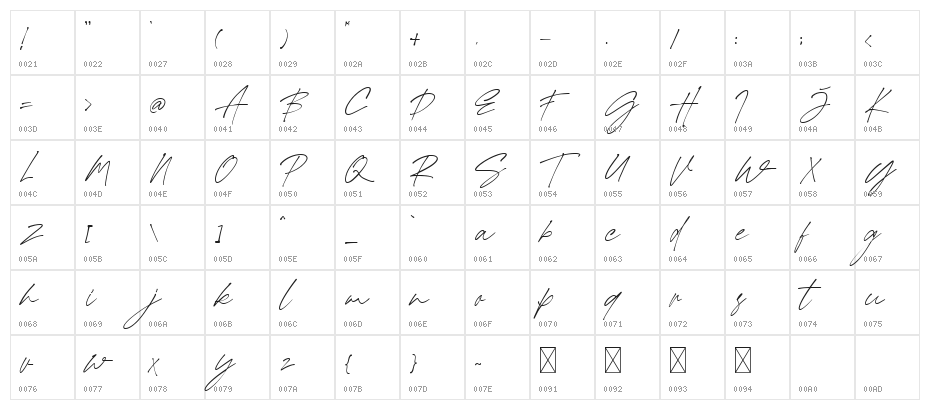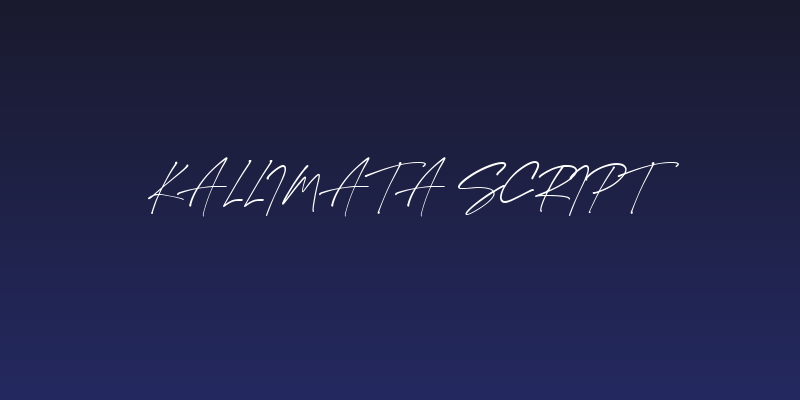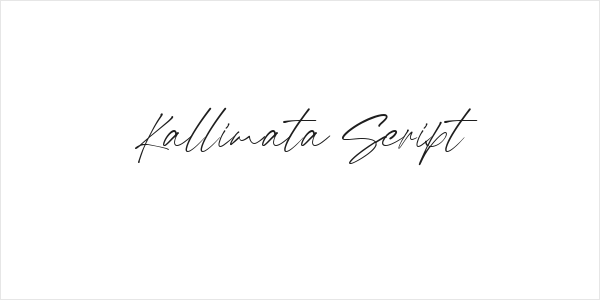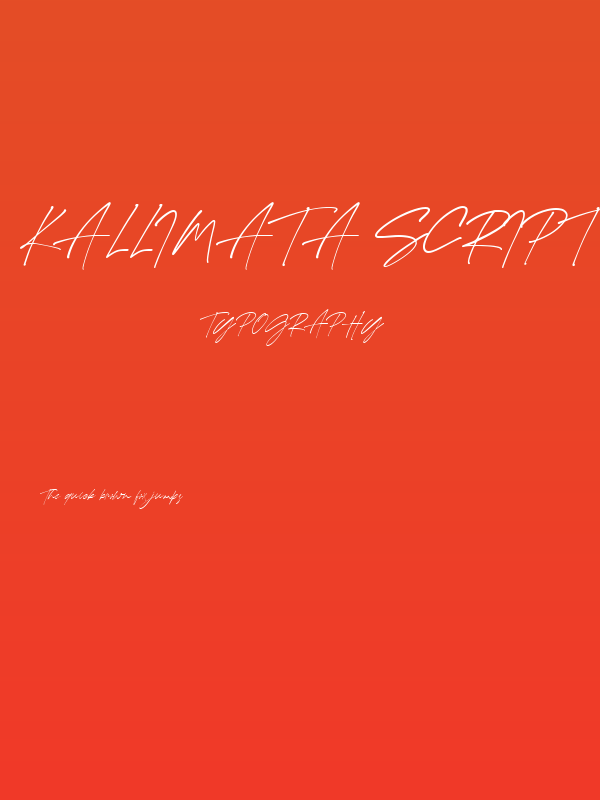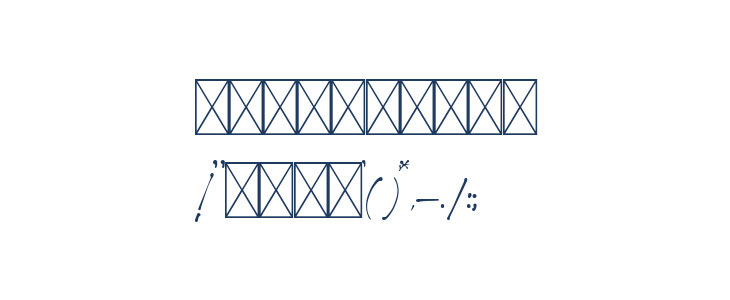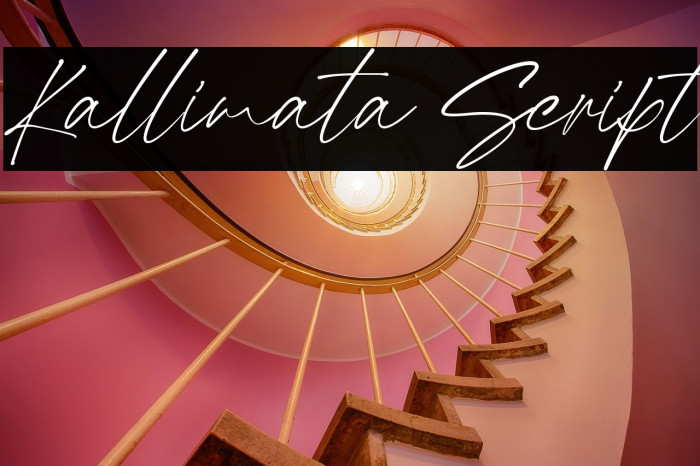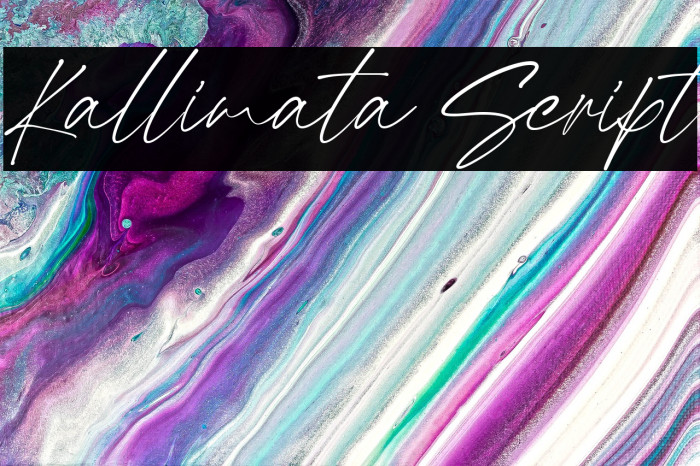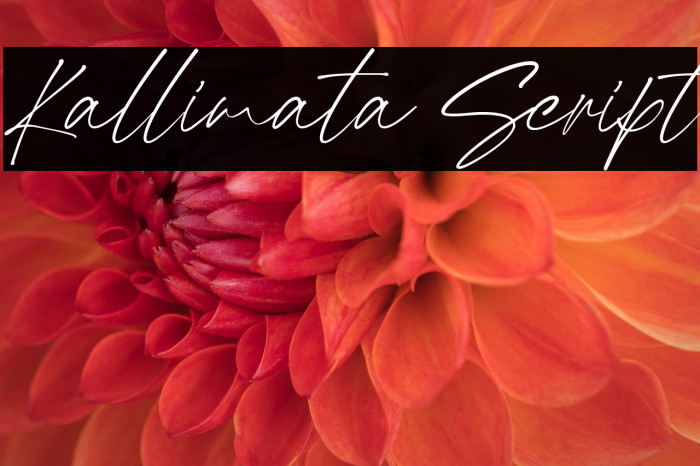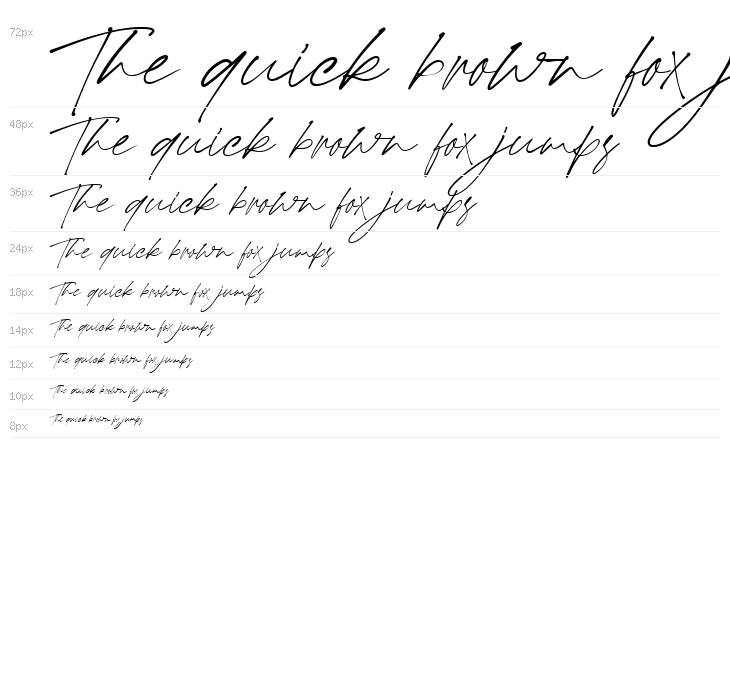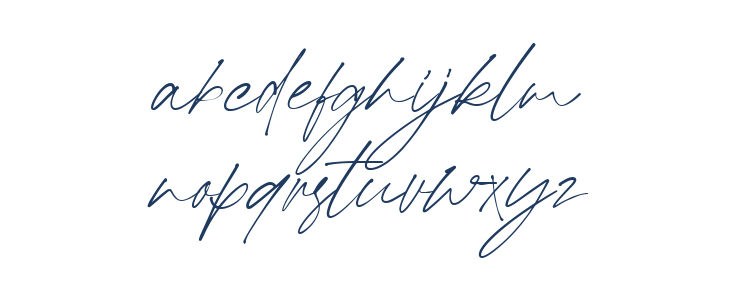
Kallimata Script Font
Kallimata Script Description
This font exudes a dynamic and expressive style, characterized by its fluid, cursive strokes that mimic the natural flow of handwriting. The letters are interconnected with a smooth and elegant flair, giving it a personal and artistic touch. The uppercase and lowercase letters maintain a consistent rhythm, while the varying stroke thickness adds a lively contrast. The font's overall appearance is both sophisticated and approachable, making it suitable for projects that require a personal or creative touch. The special characters are seamlessly integrated, maintaining the font's cohesive style.